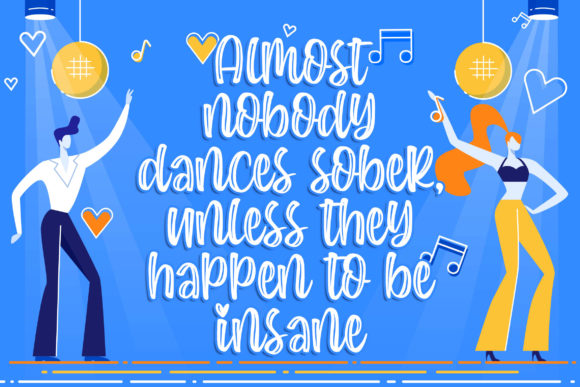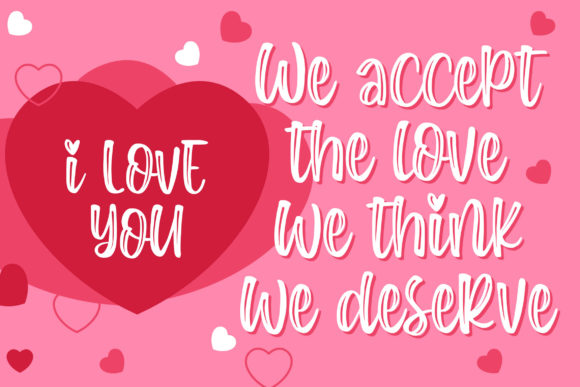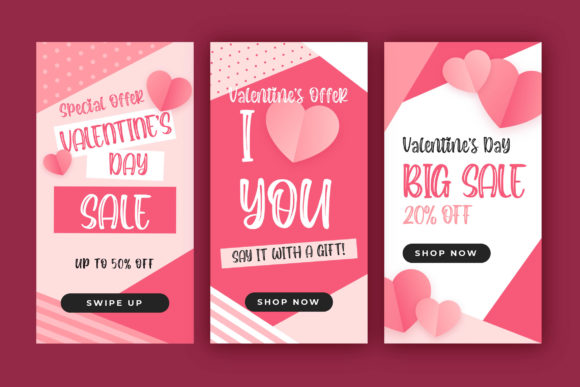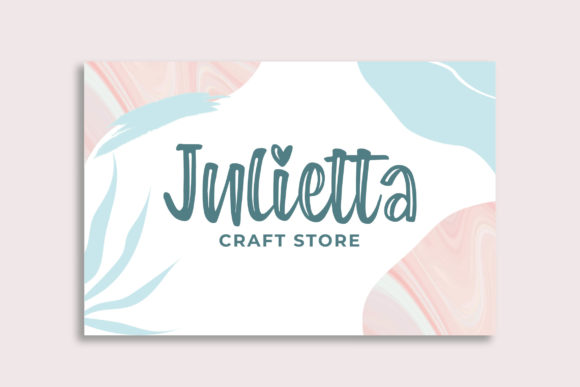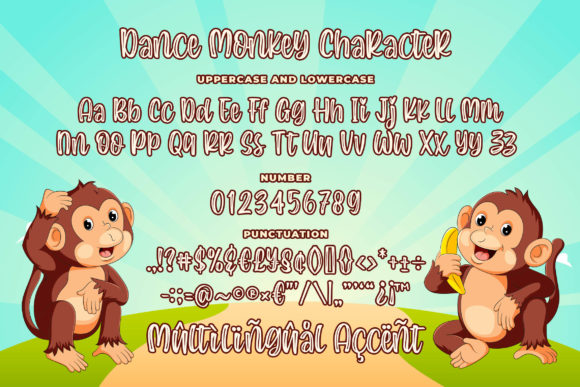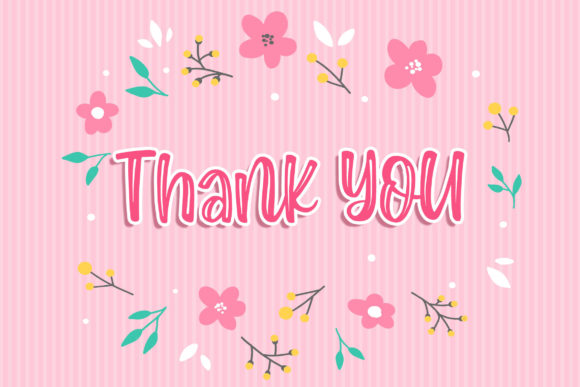
Dance Monkey Font: Unleash Your Creativity with this Quirky and Whimsical Display Font
Are you tired of using the same old fonts for your designs? Do you want to add a touch of fun and playfulness to your projects? Look no further than the Dance Monkey Font! This quirky and whimsical display font is sure to inspire your creativity and bring a smile to your face. With its unique charm and energetic vibe, Dance Monkey Font is perfect for designers and crafters looking to add a bit of personality to their work.
What is Dance Monkey Font?
Dance Monkey Font is a display font that is designed to make a statement. Its quirky and whimsical design features irregular shapes, bold lines, and a carefree spirit that is sure to capture attention. The font is perfect for headlines, titles, and short texts, and can be used for a variety of design projects, including posters, flyers, brochures, and social media graphics.
Key Features of Dance Monkey Font
- Quirky and Whimsical Design: Dance Monkey Font features a unique and playful design that is sure to stand out from the crowd.
- Fun and Energetic Vibe: The font has a carefree spirit that is perfect for designs that need a bit of personality.
- Bold and Irregular Shapes: The font features bold lines and irregular shapes that add to its quirky charm.
- Perfect for Display Text: Dance Monkey Font is designed for display text, making it perfect for headlines, titles, and short texts.
Why Use Dance Monkey Font?
There are many reasons why you should consider using Dance Monkey Font for your design projects. Here are just a few:
- Add a Touch of Personality: Dance Monkey Font is perfect for designers who want to add a bit of personality to their work.
- Stand Out from the Crowd: The font’s unique design ensures that your work will stand out from the crowd.
- Perfect for Creative Projects: Dance Monkey Font is ideal for creative projects, such as posters, flyers, and social media graphics.
- Easy to Read: Despite its quirky design, Dance Monkey Font is easy to read, making it perfect for display text.
How to Use Dance Monkey Font
Using Dance Monkey Font is easy! Here are a few tips to get you started:
- Use it for Headlines and Titles: Dance Monkey Font is perfect for headlines and titles, where you want to make a statement.
- Pair it with Other Fonts: Dance Monkey Font pairs well with other fonts, so feel free to experiment with different combinations.
- Use it for Display Text: The font is designed for display text, so use it for short texts and captions.
In conclusion, Dance Monkey Font is a quirky and whimsical display font that is sure to inspire your creativity and bring a touch of fun to your design projects. With its unique charm and energetic vibe, it’s perfect for designers and crafters looking to add a bit of personality to their work. So why not give it a try and see what amazing designs you can create?
Get Inspired by Dance Monkey Font
Here are a few examples of how you can use Dance Monkey Font to create amazing designs:
- Posters and Flyers: Use Dance Monkey Font to create eye-catching posters and flyers that will grab attention.
- Social Media Graphics: The font is perfect for social media graphics, where you want to stand out from the crowd.
- Brochures and Catalogs: Use Dance Monkey Font to add a touch of personality to your brochures and catalogs.